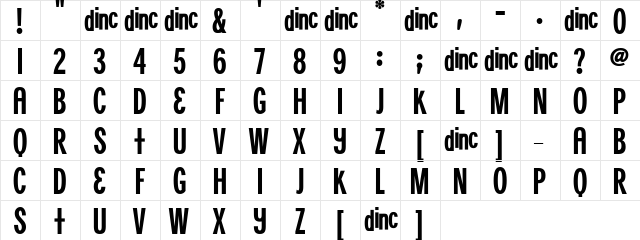
Synchronicity Regular
Design Context for Synchronicity Typeface
Synchronicity offers clean, dependable letterforms without strong stylistic allegiance, making it a practical choice for designers who need flexibility.